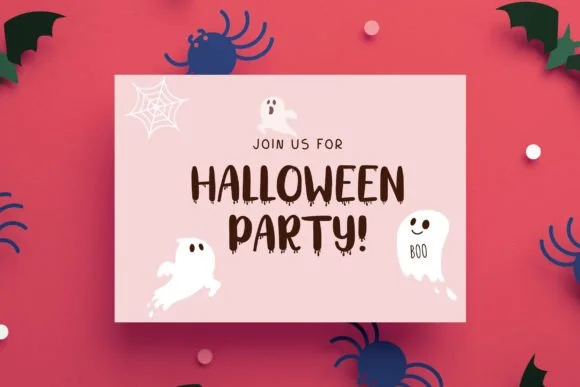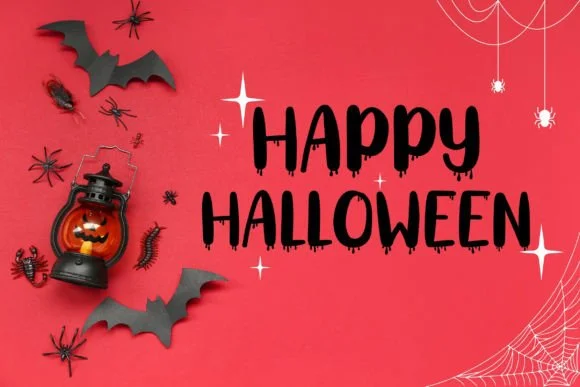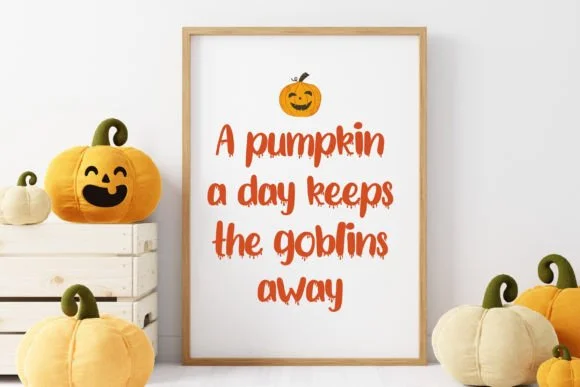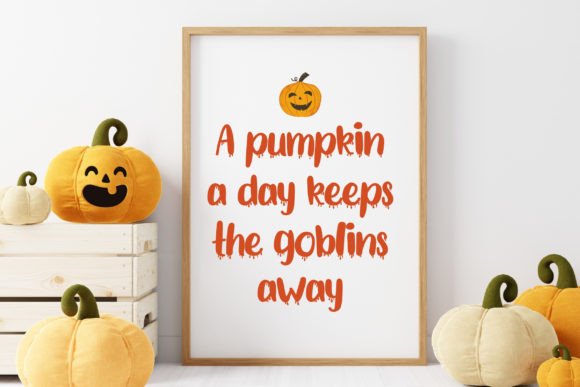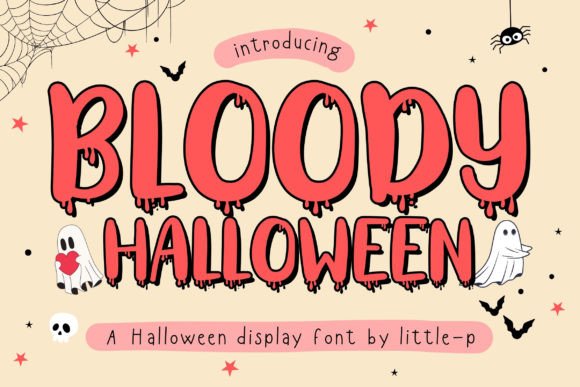
Bloody Halloween Font
This intense font is perfect for extreme horror events, vampire-themed celebrations, gore horror marketing, mature Halloween attractions, blood-themed costume parties, intense haunted experiences, adult horror branding, extreme Halloween decorations, visceral horror displays, and intensely frightening Halloween messaging materials.
Bloody Halloween Font is exciting because it unleashes the primal terror and visceral impact of blood imagery through its dramatically crafted letterforms that seem to pulse with crimson life and drip with the essence of Halloween's most intensely frightening themes. The font features disturbingly realistic characters with blood-soaked proportions and gore-inspired details that evoke the bone-chilling atmosphere of horror scenarios where fear transcends the psychological to become viscerally physical, incorporating crimson flourishes and dripping elements that create typography as intensely disturbing and memorably shocking as fresh blood gleaming in moonlight. Each letter showcases the raw intensity and primal fear response that makes bloody horror themes so powerfully effective in creating genuine terror, with flowing curves and crimson accents that transform ordinary text into instruments of visceral horror that appeal to mature audiences seeking authentically disturbing Halloween experiences that push beyond ordinary scares into genuinely unsettling psychological territory where horror becomes tangible and fear takes physical form.
The Bloody Halloween Font family includes gore-inspired variations: Regular, Bold, Light, Dripping, and Splattered versions. The collection features special bloody elements including drip accents, splatter effects, crimson flourishes, and gore ornaments. Additional components include bloody borders, splatter frames, gore decorations, and viscerally intense ornamental designs that enhance the font's bloody Halloween appeal and create cohesive extreme horror themes.
Extreme horror creators and mature Halloween enthusiasts will find Bloody Halloween Font to be an essential resource for creating authentically intense Halloween communications that deliver genuine visceral impact and psychological terror for sophisticated horror audiences. This intensely crafted font transforms ordinary Halloween messaging into bloody expressions that resonate with mature celebrants seeking genuinely disturbing and authentically terrifying Halloween experiences that transcend conventional scares to deliver lasting psychological impact and visceral horror responses.
The typeface includes comprehensive character support with gore styling that maintains excellent readability while conveying the visceral intensity and bloody atmosphere of extreme Halloween horror celebrations. The font's intensely disturbing design ensures viscerally powerful results across both amateur extreme applications and professional intense horror productions.
Perfect for extreme horror events, mature Halloween celebrations, visceral horror attractions, and intensely disturbing seasonal marketing, this font delivers viscerally shocking visual impact that communicates genuine terror, intense horror, and the authentically disturbing atmosphere that makes bloody Halloween themes such powerfully effective instruments of extreme psychological horror and visceral supernatural fear.